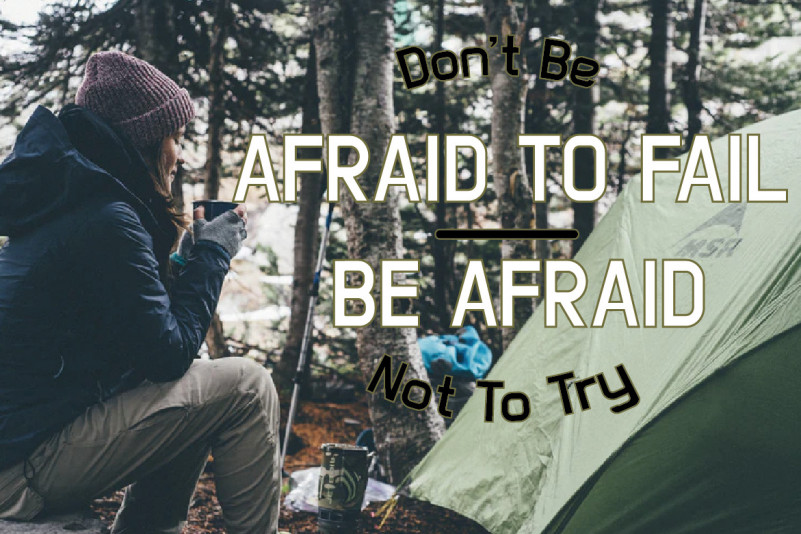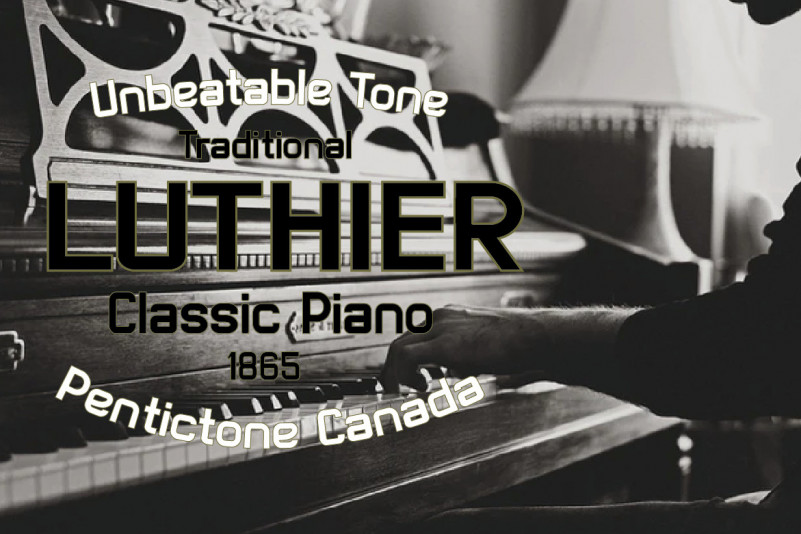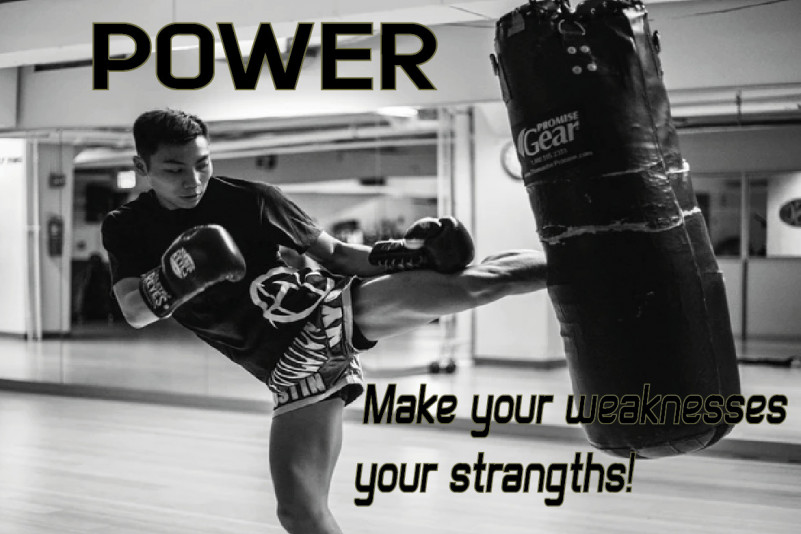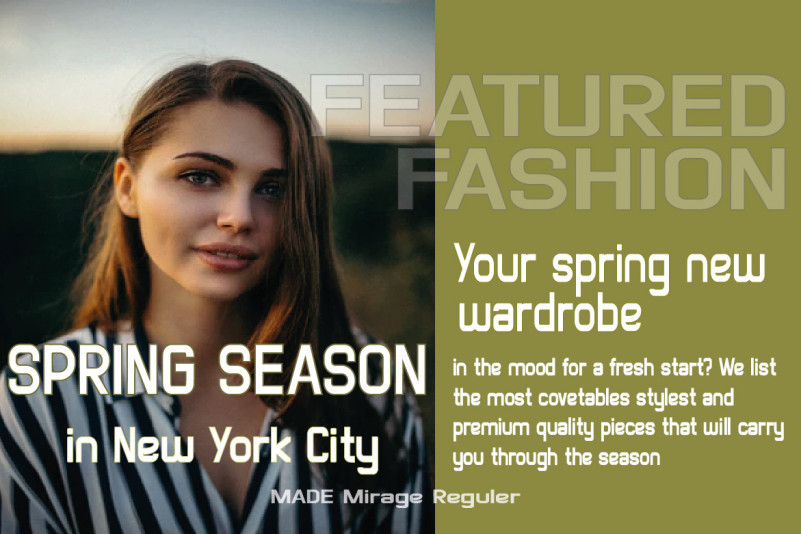
PANGKON Font
PANGKON Sans Serif Font
This is a minimal and neat sans serif font. It can easily be matched to an incredibly large set of projects, so add it to your creative ideas and notice how it makes them stand out!
Design Amour